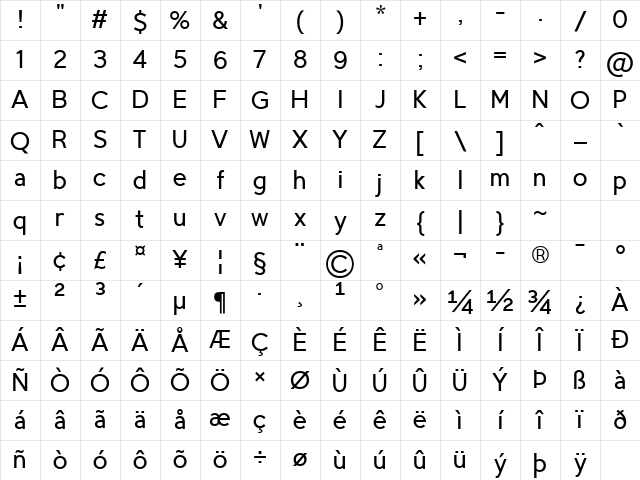
Triomphe Light
Foundry: J￿r￿mie Dupuis
Designer: J￿r￿mie Dupuis
Design Context for Triomphe
Triomphe is a composed and adaptable typeface that performs quietly and consistently across a wide range of design contexts. Its slender proportions lend an understated elegance to any composition.